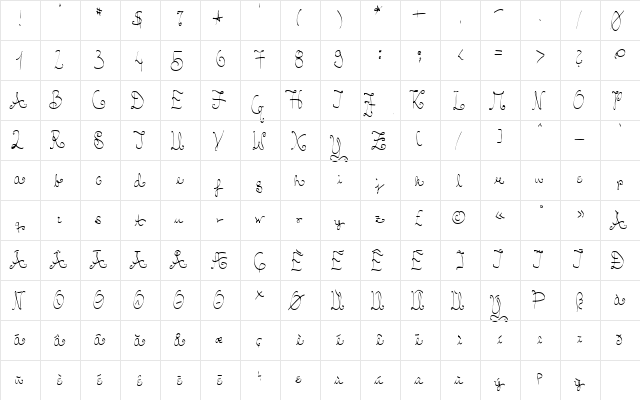
Skrivande Regular
Design Context for Skrivande Typeface
Skrivande is a composed and adaptable typeface that performs quietly and consistently across a wide range of design contexts.